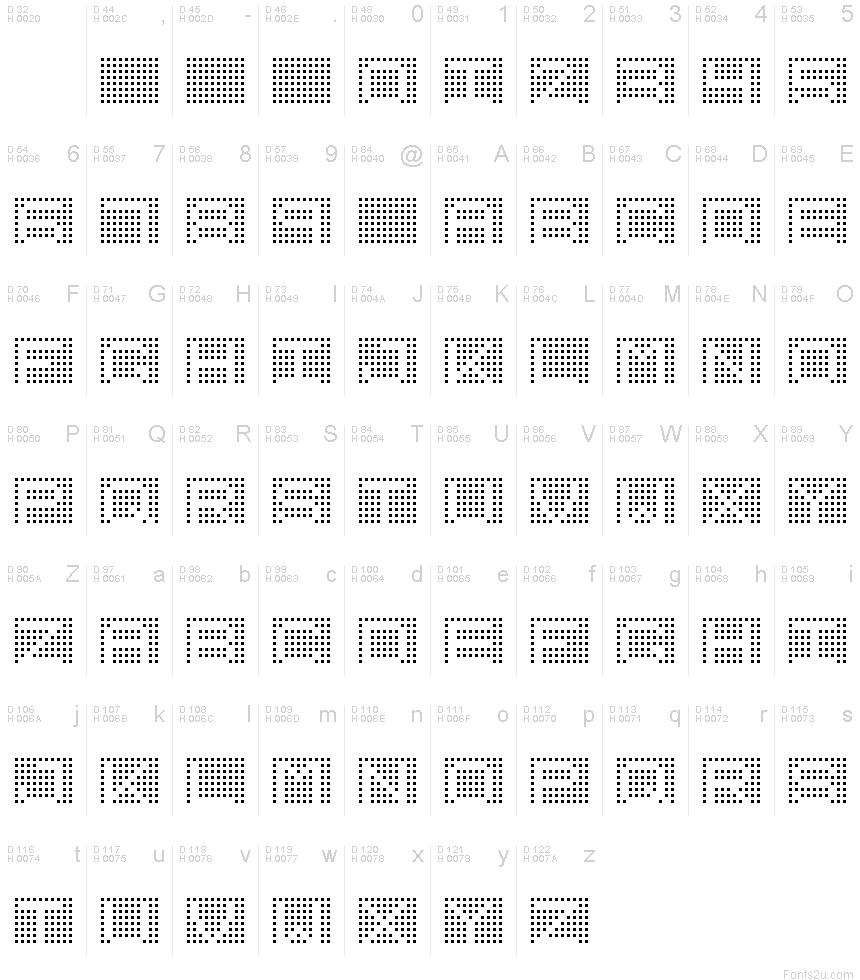
7inch Regular
7inch is a striking and unconventional font that commands attention. Designed by Andreas Johansson, this bitmap typeface boasts a distinctly pixelated and negative style, lending it a bold, industrial aesthetic. The expanded width further amplifies its visual impact, creating a sense of weight and solidity. This unique combination of features makes 7inch an excellent choice for eye-catching headlines, attention-grabbing posters, or gritty, tech-inspired branding. Its angular, retro-futuristic appearance lends itself well to a variety of design contexts, from sci-fi-inspired narratives to modern, minimalist layouts.
Ultimately, 7inch is a font that defies expectations, offering designers a compelling typographic tool to express their vision with impact and flair.